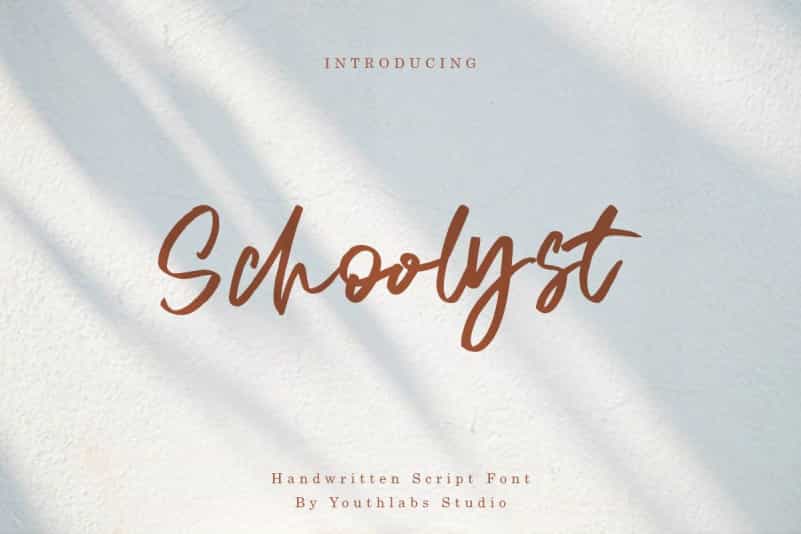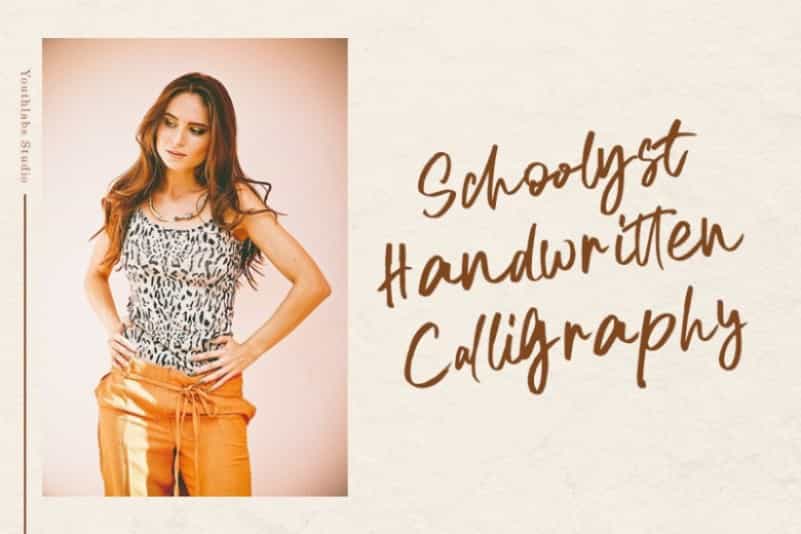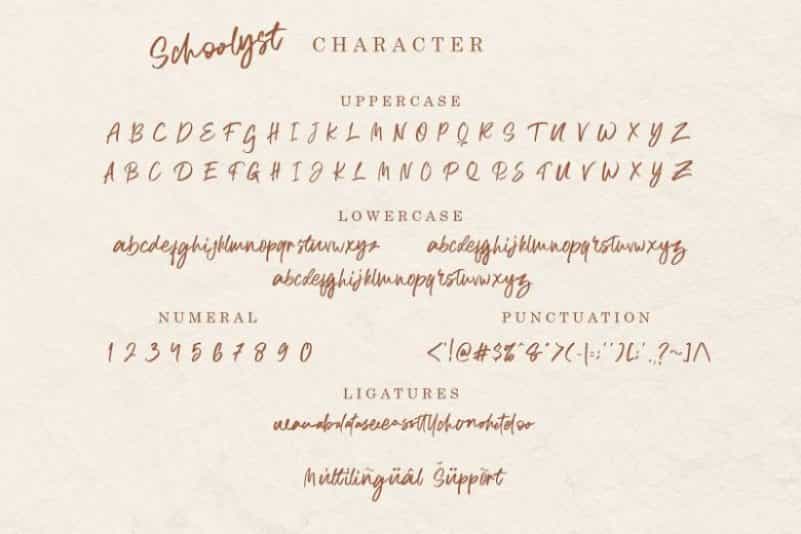
Schoolyst Handwritten Script Font was created from the brush pen scratches and then scanned before being transferred to the vector mode. this is our handwriting. Schoolyst have 2 Uppercase styles and 3 Lowercase Styles that allow you to explore the design.